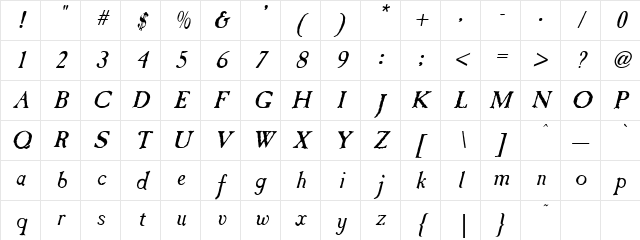
Purple 2 Regular
Complete Purple 2 Regular glyph index. Displaying only characters natively supported by Purple 2 Regular font.
Design Context for Purple 2
Purple 2 is a composed and adaptable typeface that performs quietly and consistently across a wide range of design contexts.